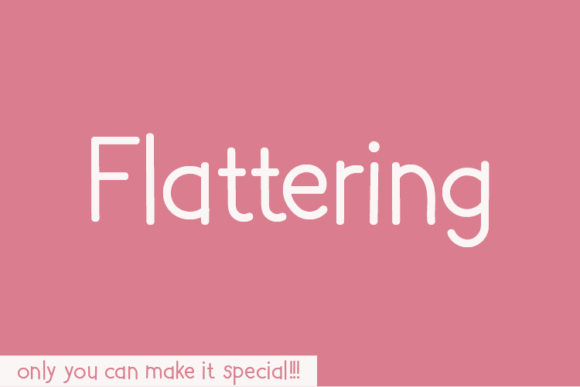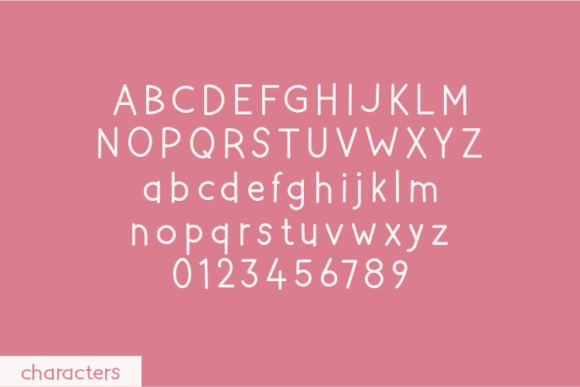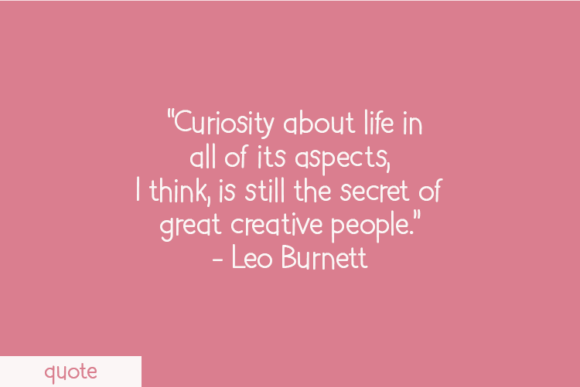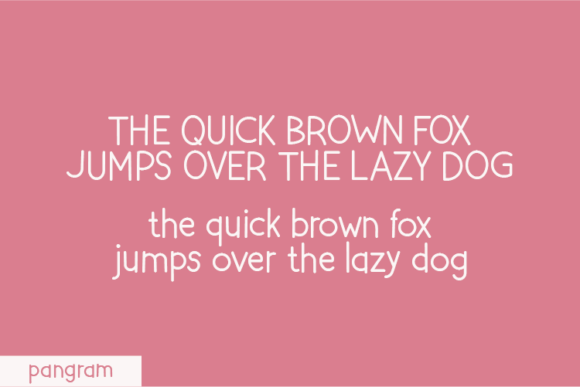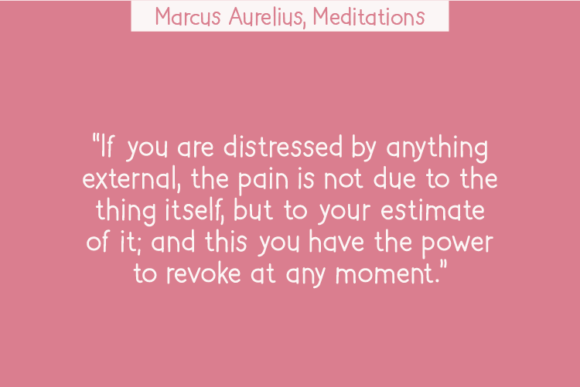
About Flattering Font
The Flattering Font Download is a natural handwritten typeface designed with authenticity in mind. Unlike standard fonts that are refined and altered, Flattering was created without changing a single node in each character’s indentation. This process gives the font a raw and organic rhythm, making it visually unique and interesting to use.
Because of its natural flow and handcrafted charm, Flattering delivers warmth and personality to your designs. It feels casual but polished, making it versatile for many different projects. Whether you’re working on quotes, notes, t-shirt graphics, social media posts, packaging, posters, or stationery, this font adapts with ease and adds a genuine handwritten touch.
Features of Flattering Font
Authentic handwritten style created without altering nodes
Smooth and natural strokes for a handcrafted feel
Full character set with uppercase, lowercase, numbers, and punctuation
Readable yet creative flow that balances clarity and style
Versatility for both print and digital use
Best Uses for Flattering Font
The Flattering Font Download is perfect for many types of creative projects. For example, it works beautifully for inspirational quotes on social media, adding warmth and relatability. It also looks excellent on t-shirts, hoodies, and tote bags, giving apparel a unique and personal vibe.
In addition, Flattering is ideal for greeting cards, planners, journals, and invitations, where its handwritten look creates intimacy and charm. It performs well on product packaging and labels, especially for handmade or organic items that benefit from a natural aesthetic. Furthermore, Flattering enhances logos and branding projects, providing a distinctive handcrafted identity. Finally, it works seamlessly for posters, flyers, and event promotions, where authenticity draws attention.
Why Choose Flattering Font
Designers choose the Flattering Font Download because it embraces originality. By keeping every indentation untouched, the font captures the raw character of handwriting. As a result, it creates a deeper emotional connection with audiences than highly polished typefaces.
Unlike generic handwritten fonts, Flattering offers creativity, readability, and uniqueness. It is casual enough for personal projects but professional enough for branding and packaging. This combination ensures that your designs remain stylish, approachable, and distinct.
The Flattering Font Download is a natural handwritten typeface that blends handcrafted charm with versatile usability. With its raw strokes and organic rhythm, it is perfect for quotes, apparel, posters, packaging, stationery, and more.